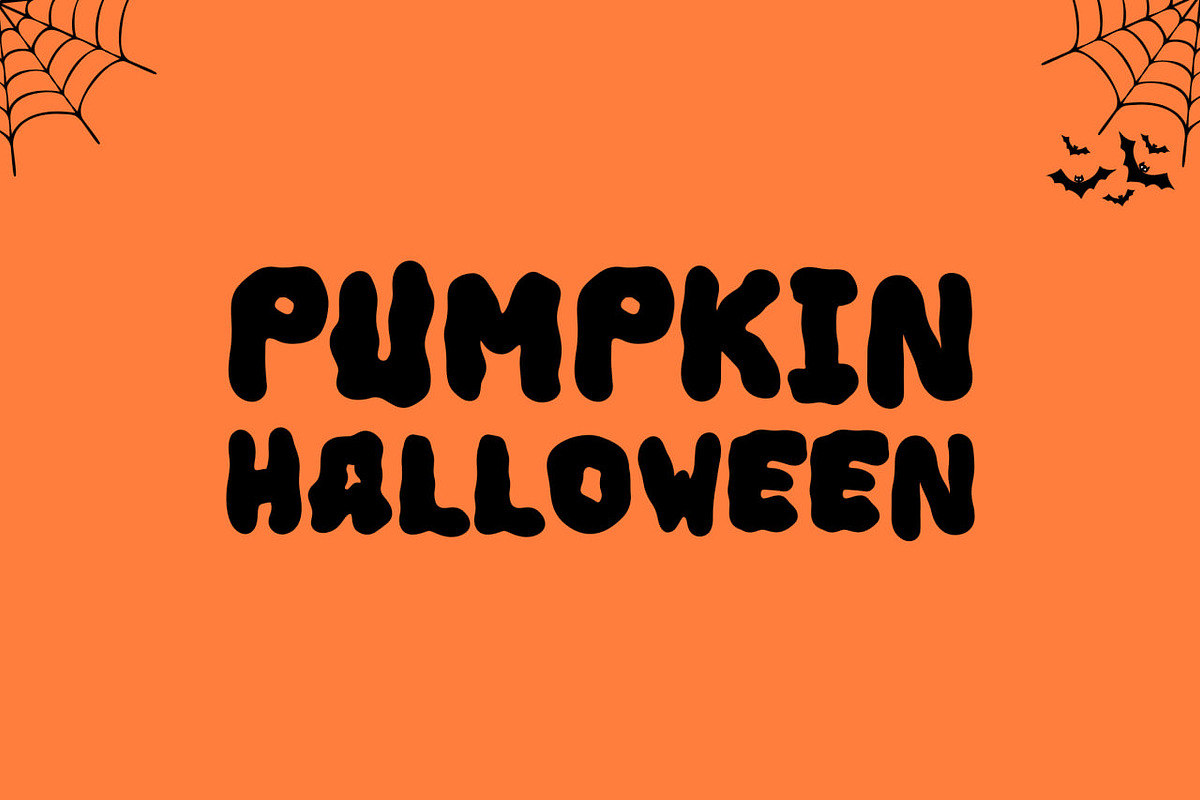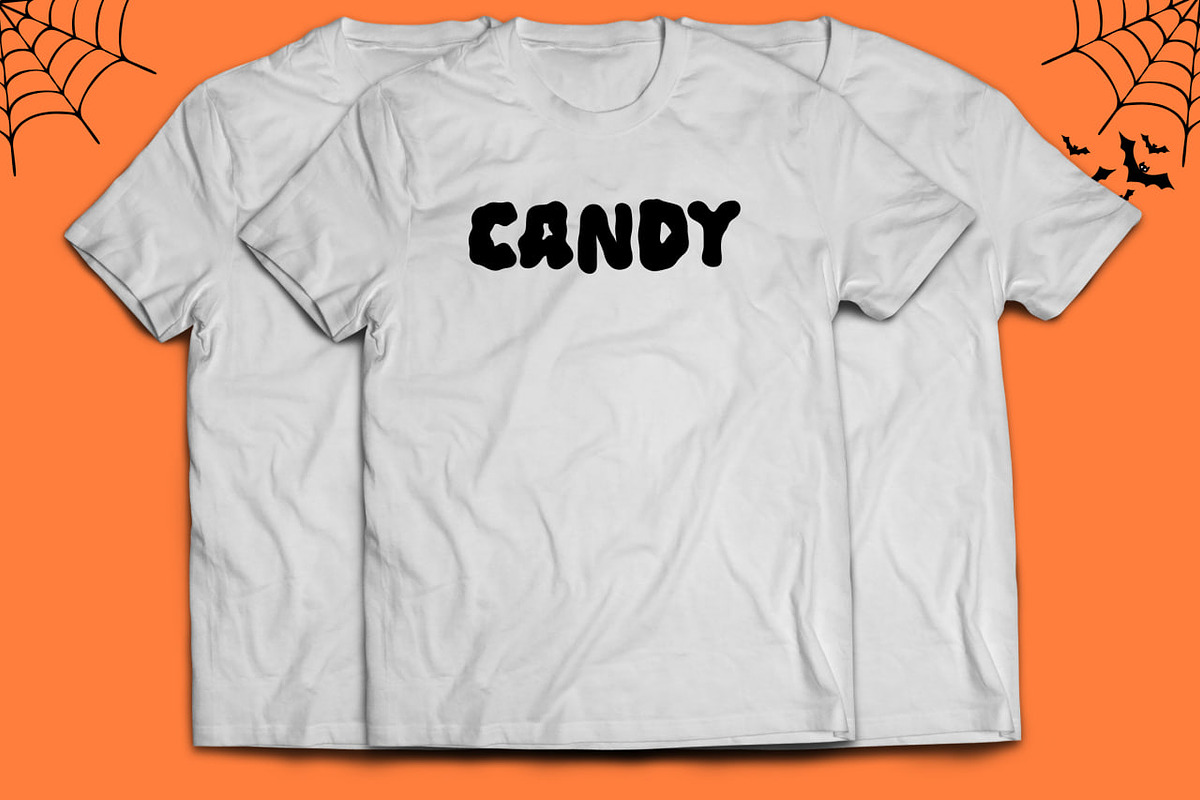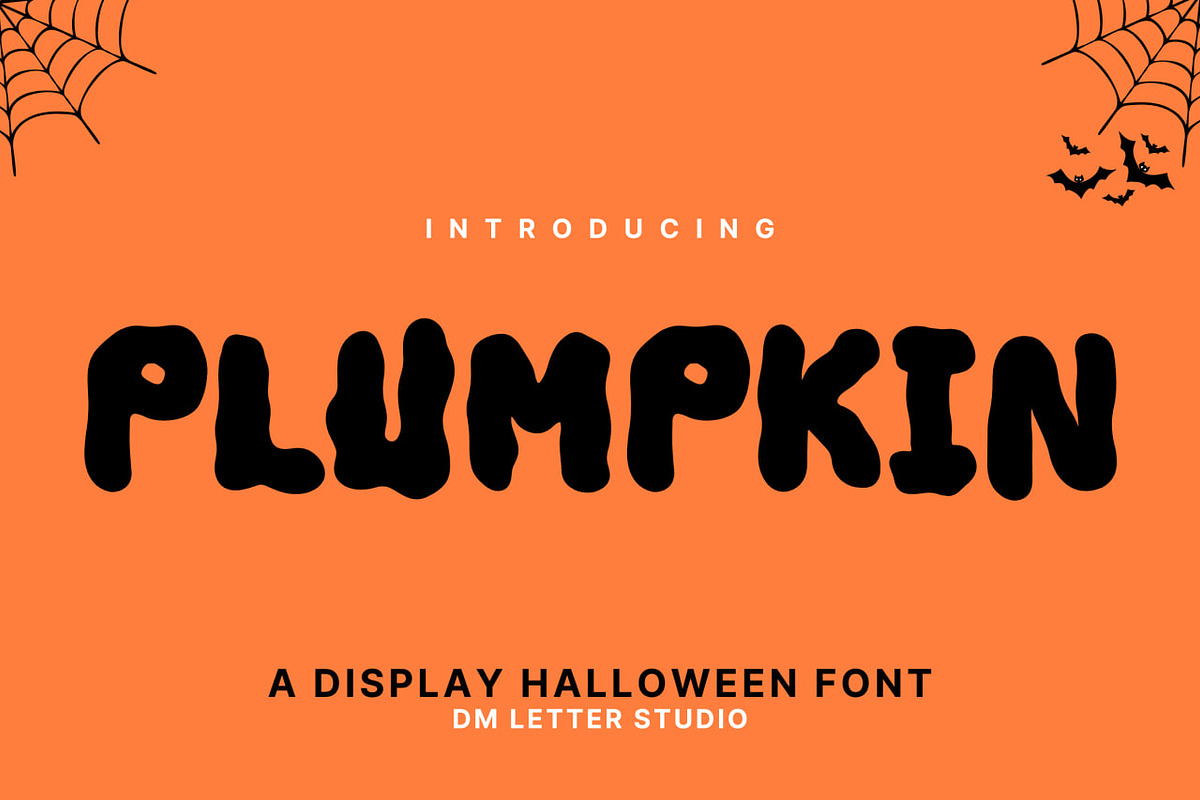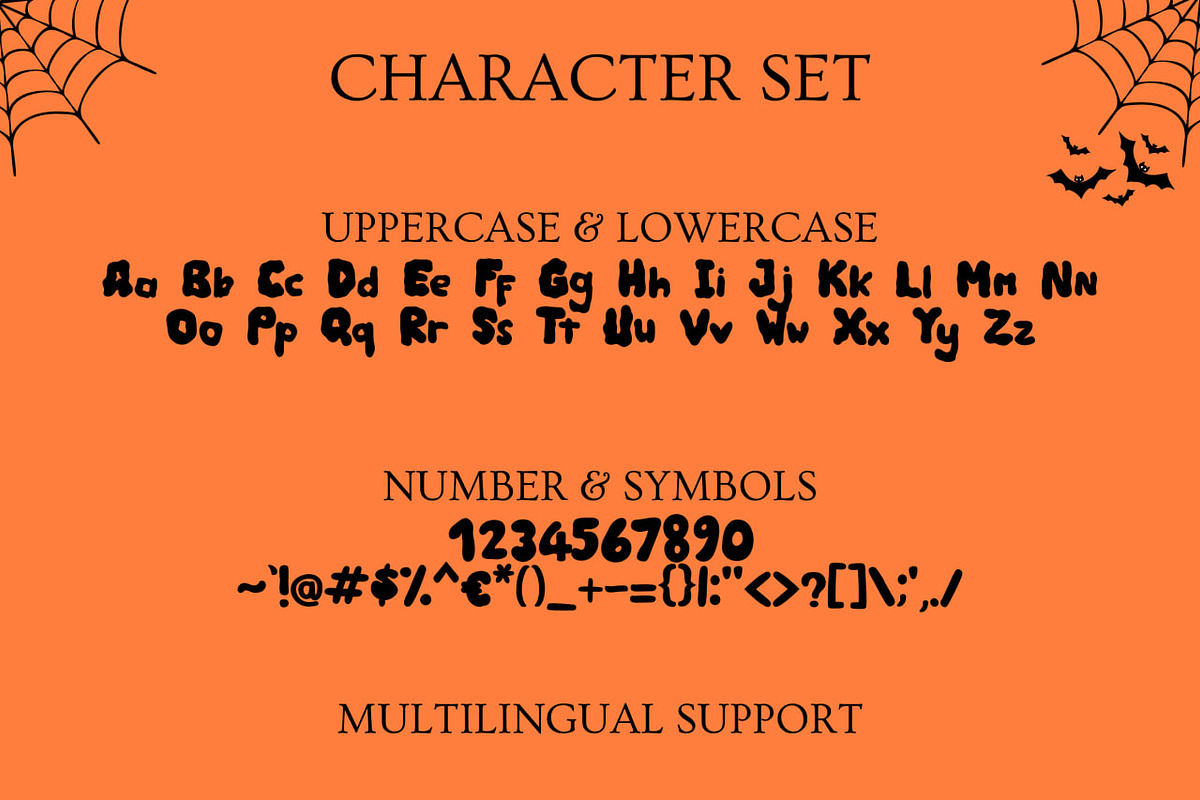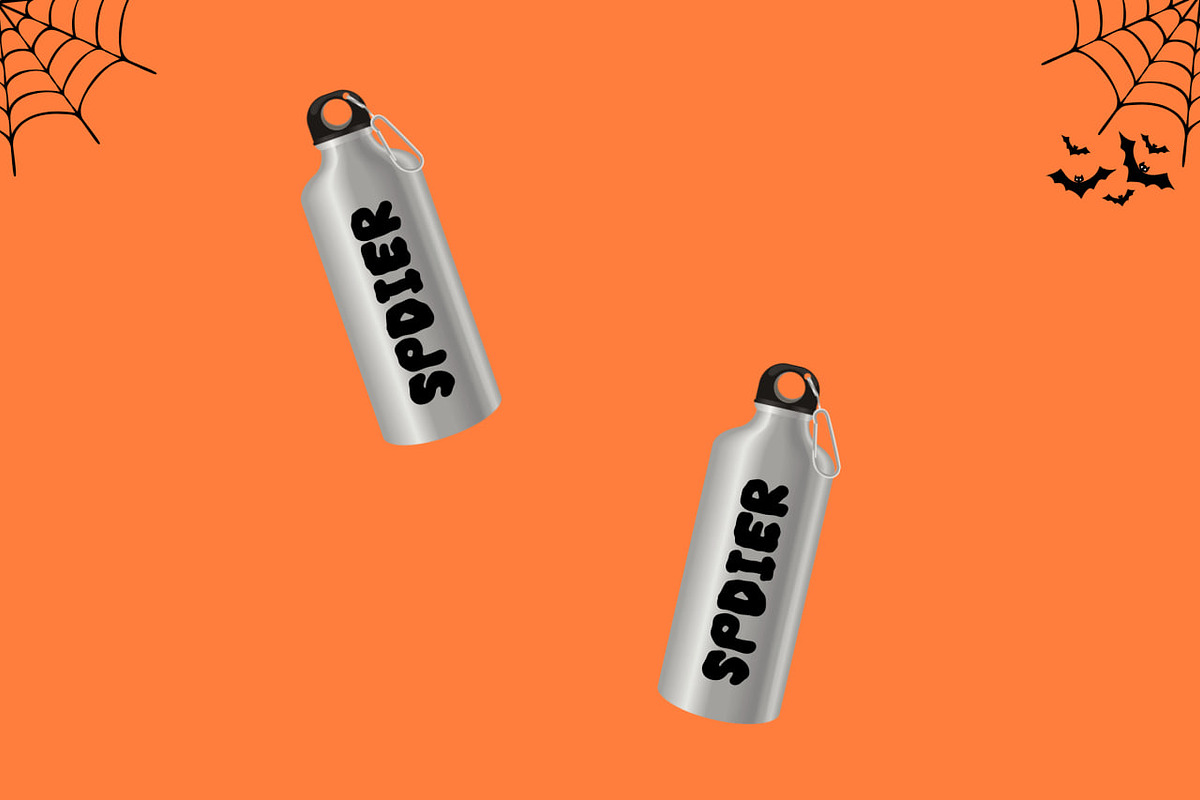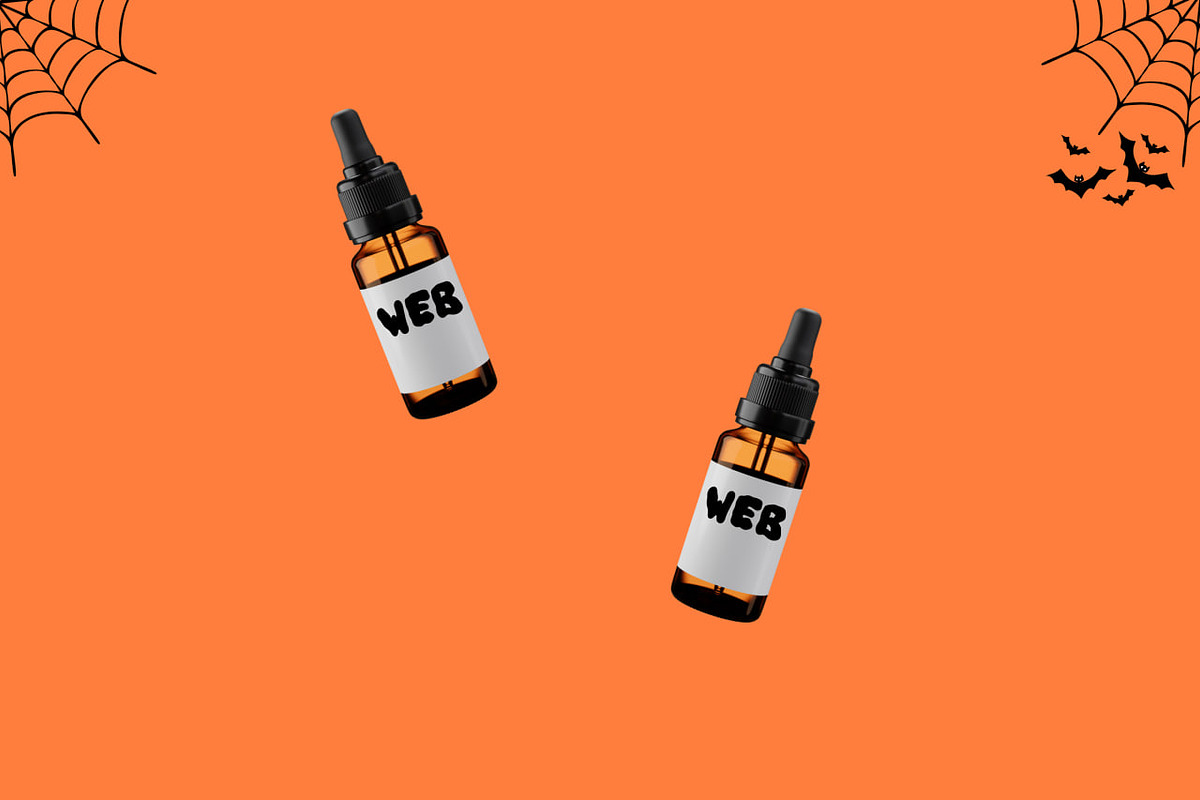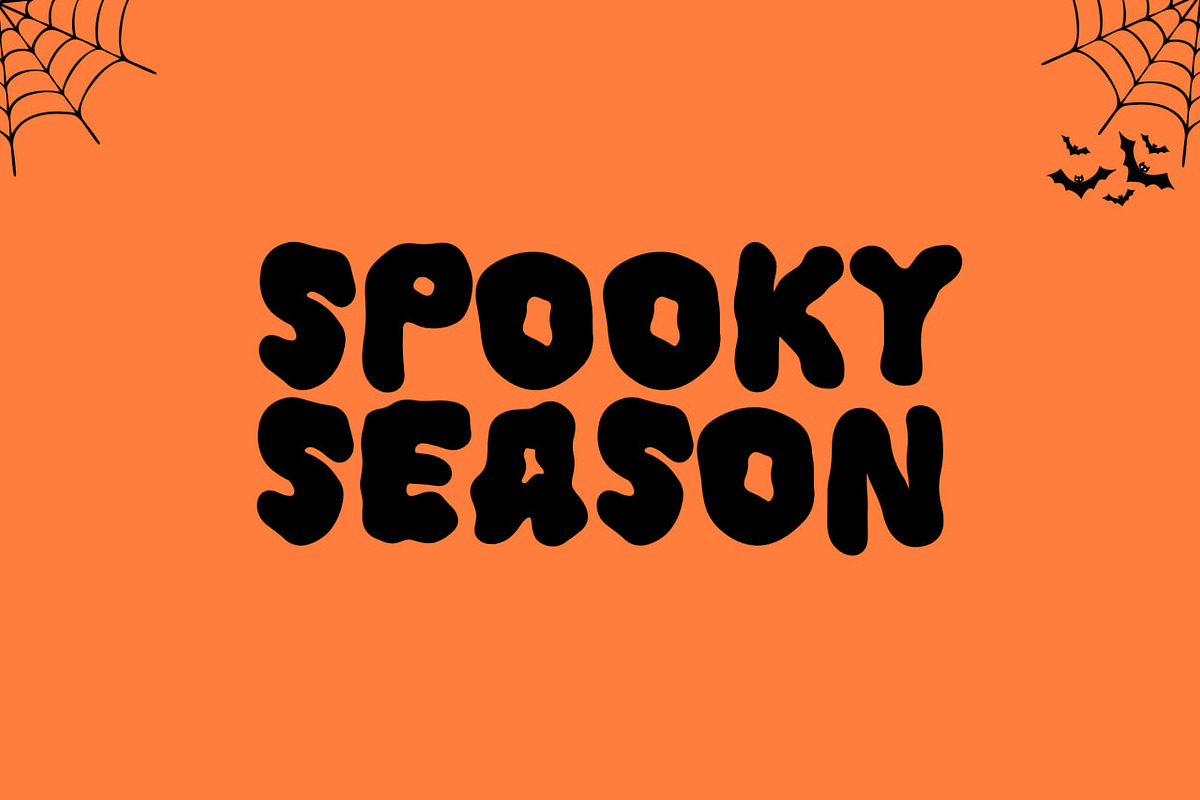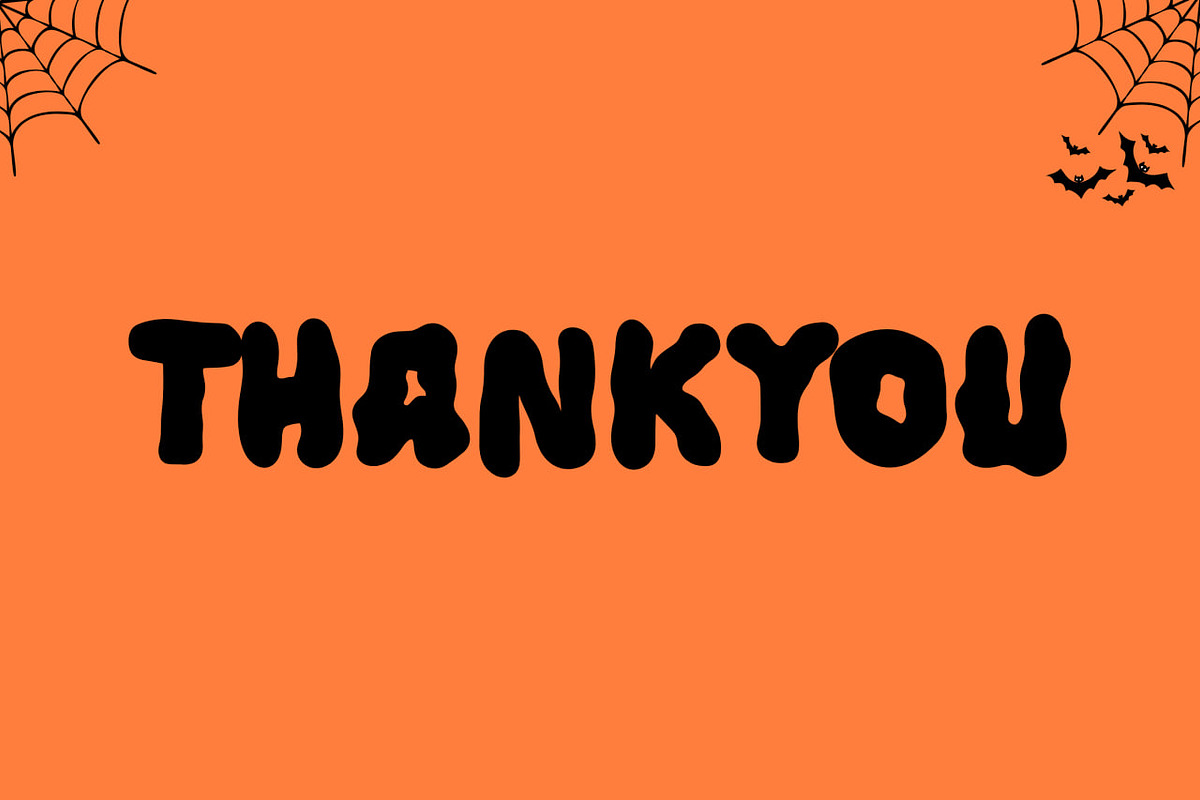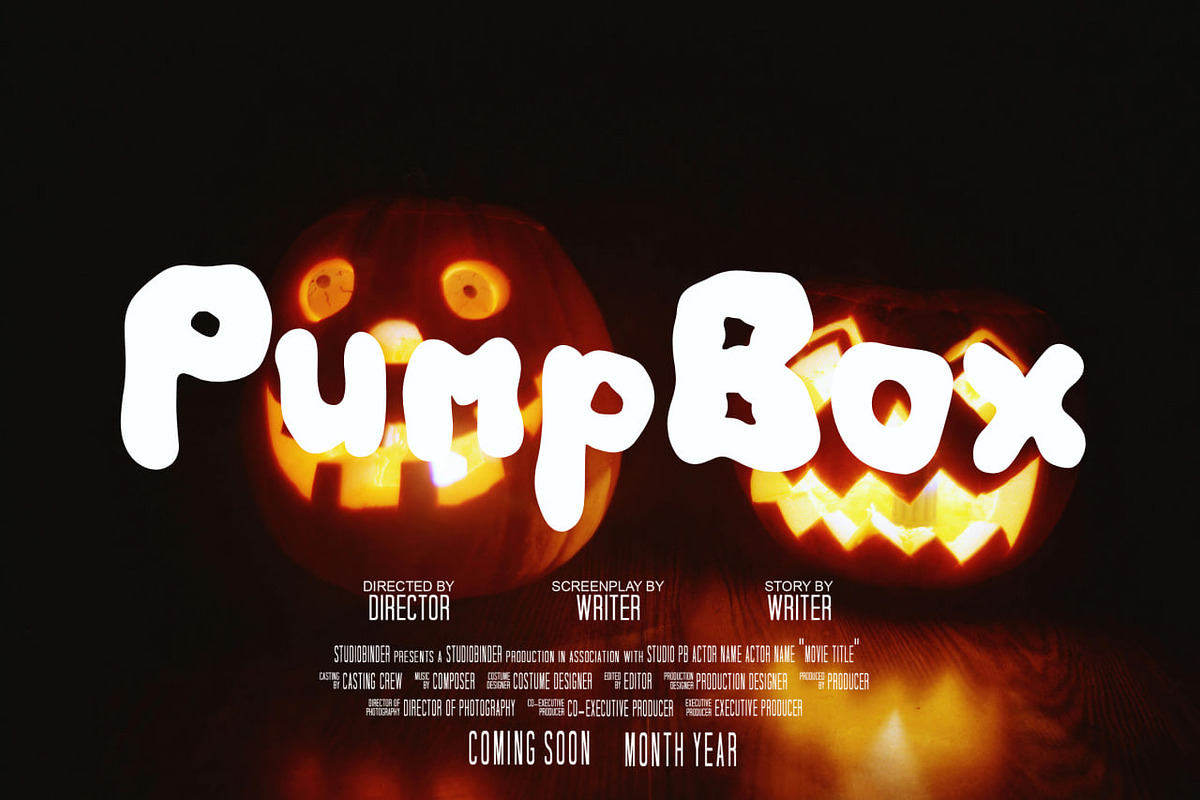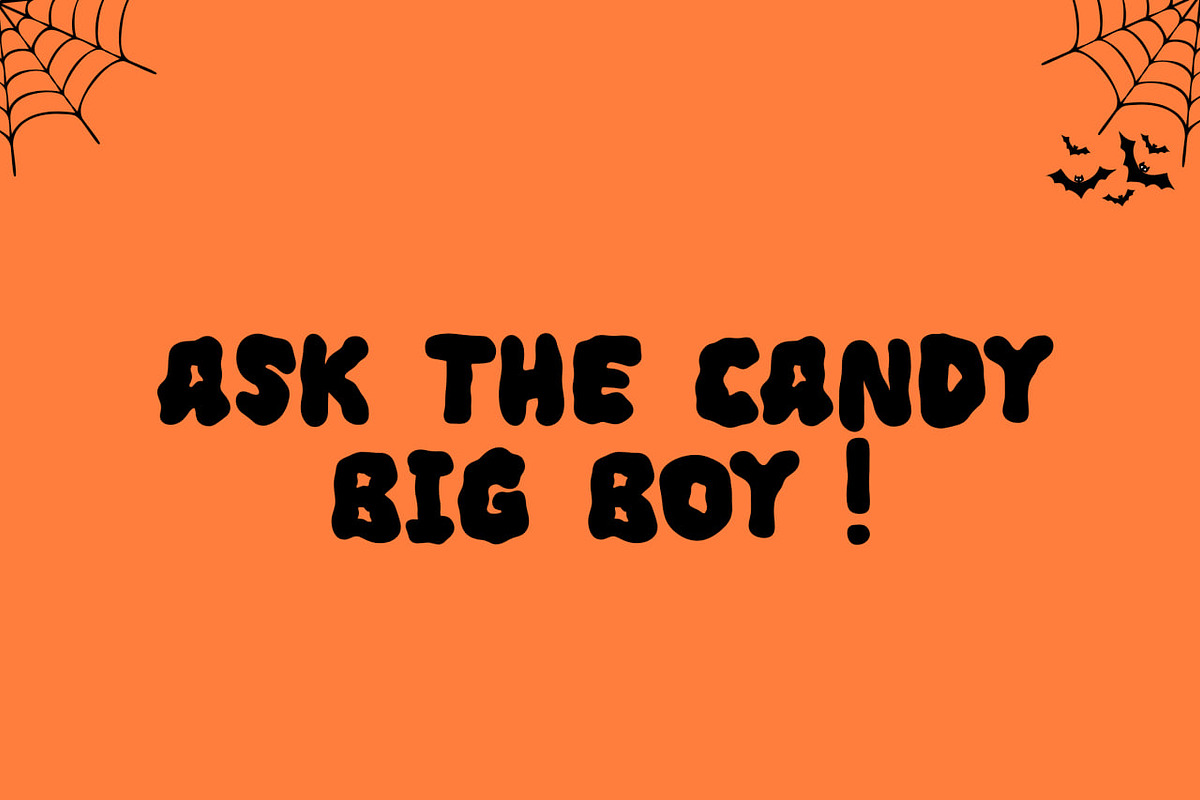
Plumpkin
Meet Plumpkin, the Playful Chunky Display Font
Plumpkin is a chunky, rounded display font with a fun, bouncy personality. The letterforms are bold and plump, giving your designs a friendly, joyful feel that instantly grabs attention. Because the shapes are thick and well balanced, Plumpkin stays readable at any size, from small stickers to big headlines. Use it for playful branding, kids designs, seasonal projects, posters, packaging, apparel, and social media graphics. As a result, your designs feel cheerful, bold, and full of character.
Fast layouts with the Plumpkin Font
Start with short, punchy words and let the chunky shapes shine. After that, add supporting text in a clean sans font for balance. Because Plumpkin has a soft, rounded structure, it works especially well in stacked layouts, bubbles, and badge-style designs. In addition, it looks great on stickers, labels, and headline graphics. Finally, try color pairs like orange & cream, pastel mixes, black & white, or candy tones to enhance the playful mood.
Creative uses and quick wins
Playful logos and brand names
Stickers, decals, and printable quotes
Kids apparel, tote bags, and merch
Posters, packaging, and social media posts
Uppercase, lowercase, numbers, punctuation
Design tips for Plumpkin Font
Keep words short so the chunky style stays clear. Also, give letters enough spacing to avoid crowding in small designs. For extra fun, add outlines, shadows, or bright backgrounds. Finally, export at 300 DPI for print and at 2× size for web so everything stays crisp.